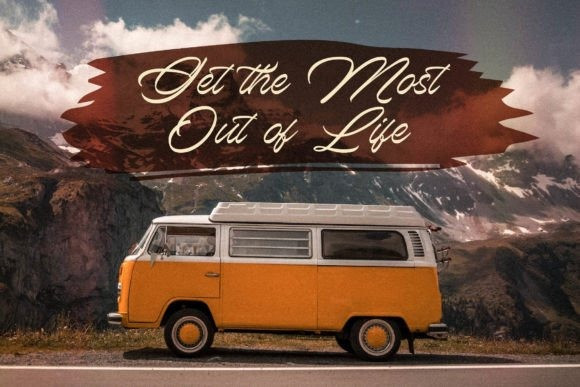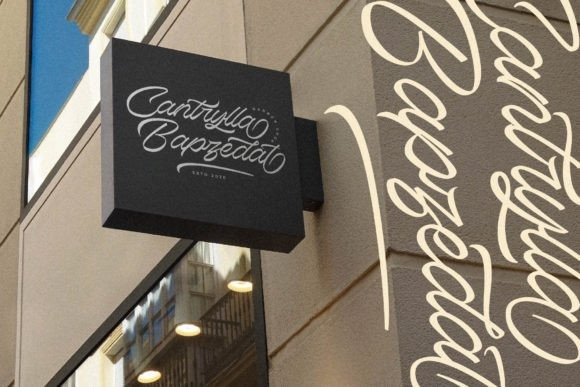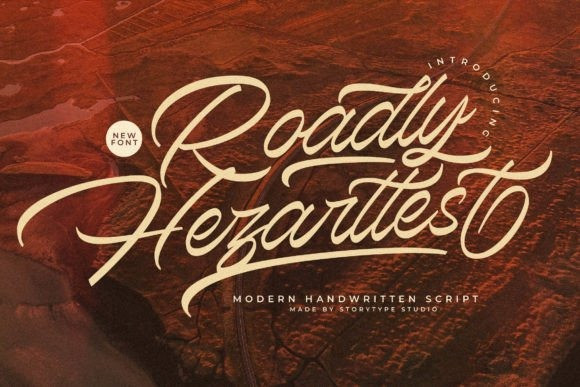
Roadly Hezarttest Font
Roadly Hezarttest – Modern Handwritten Script , created by Storytype, a luxury script that has own unique style & modern look.